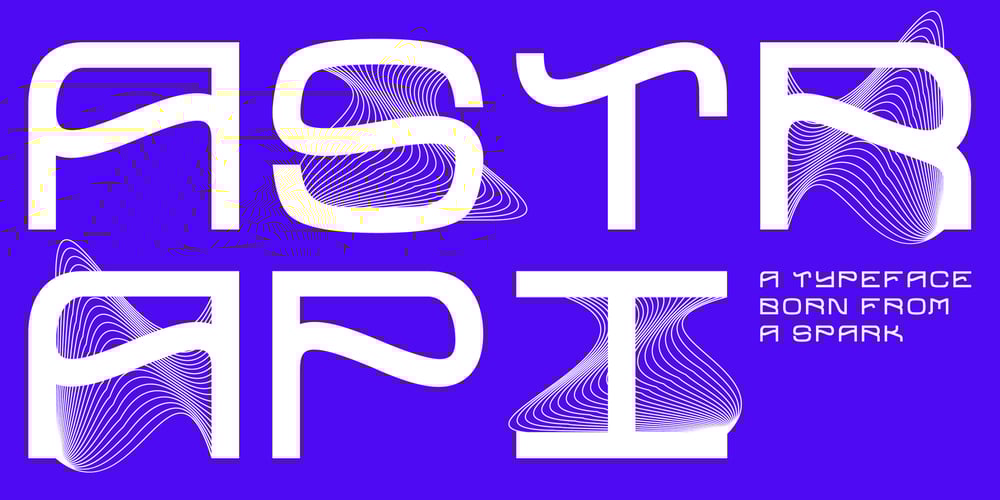
Astrapi Font Family was designed by Athena Eleftheridi and published by Eleftheria Fonts. Astrapi contains 1 styles and family package options. A new typeface was born from a spark.Astrapi (Αστραπή) is translated from Greek as lightning. Indeed, designed to reflect the power of electricity, the plasticity of the letters creates a feeling of fluidity, continuity and strength.In addition to the main style, almost every letter and number in Astrapi has a stylistic alternative. And the elements inside these glyphs resemble the movement of electromagnetic waves.Astrapi is designed for headlines, quotes, posters, logotypes, etc. Powerful and smooth, it helps you set the right mood for your project.